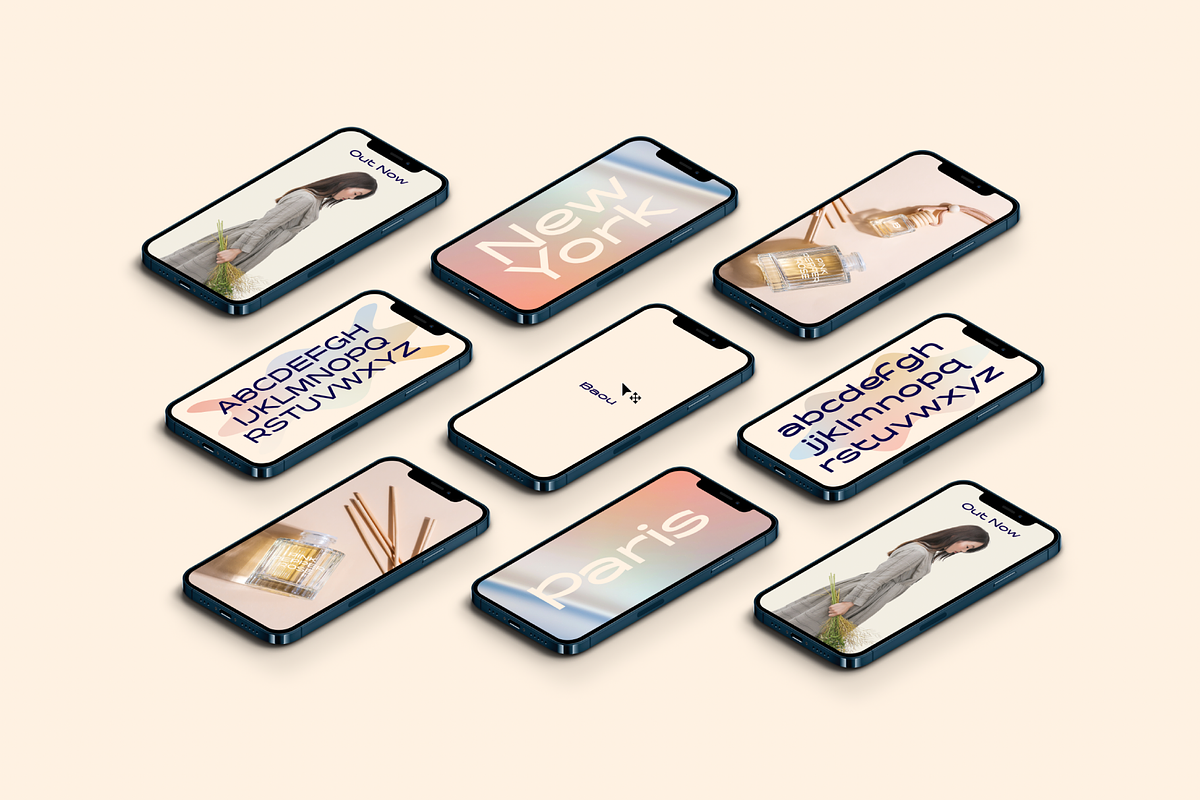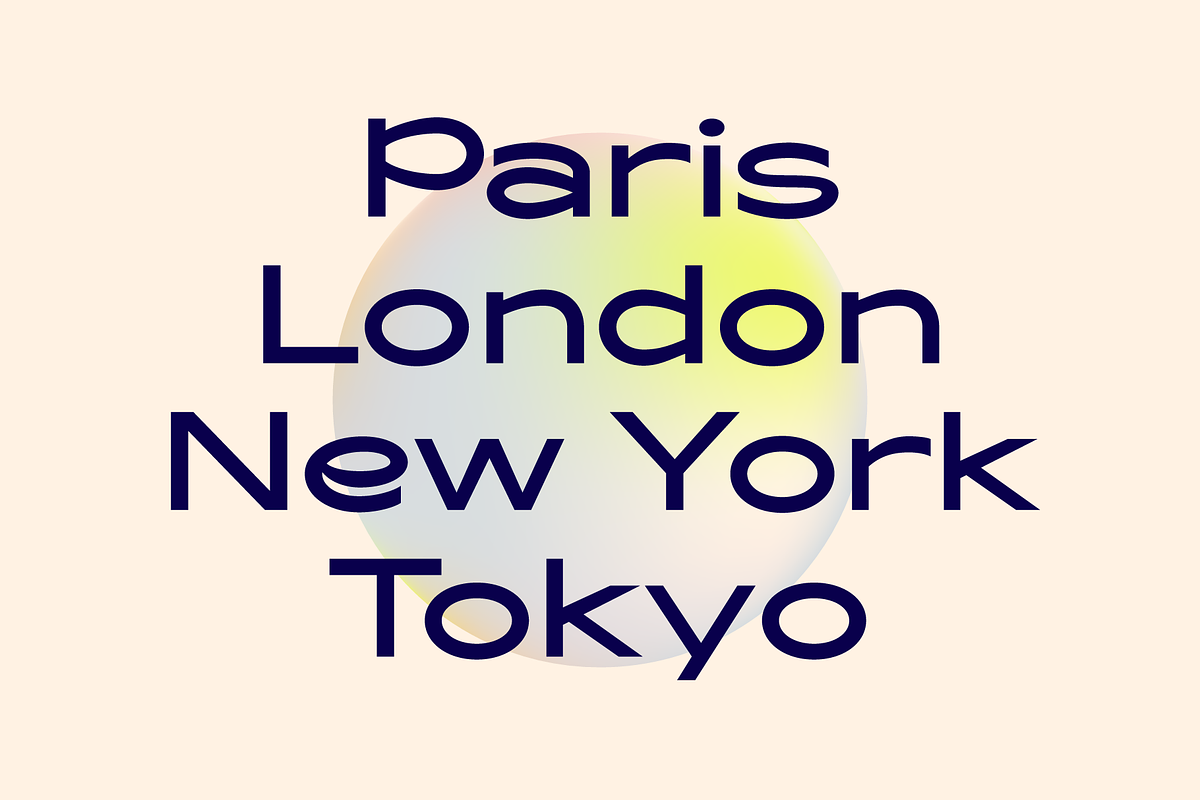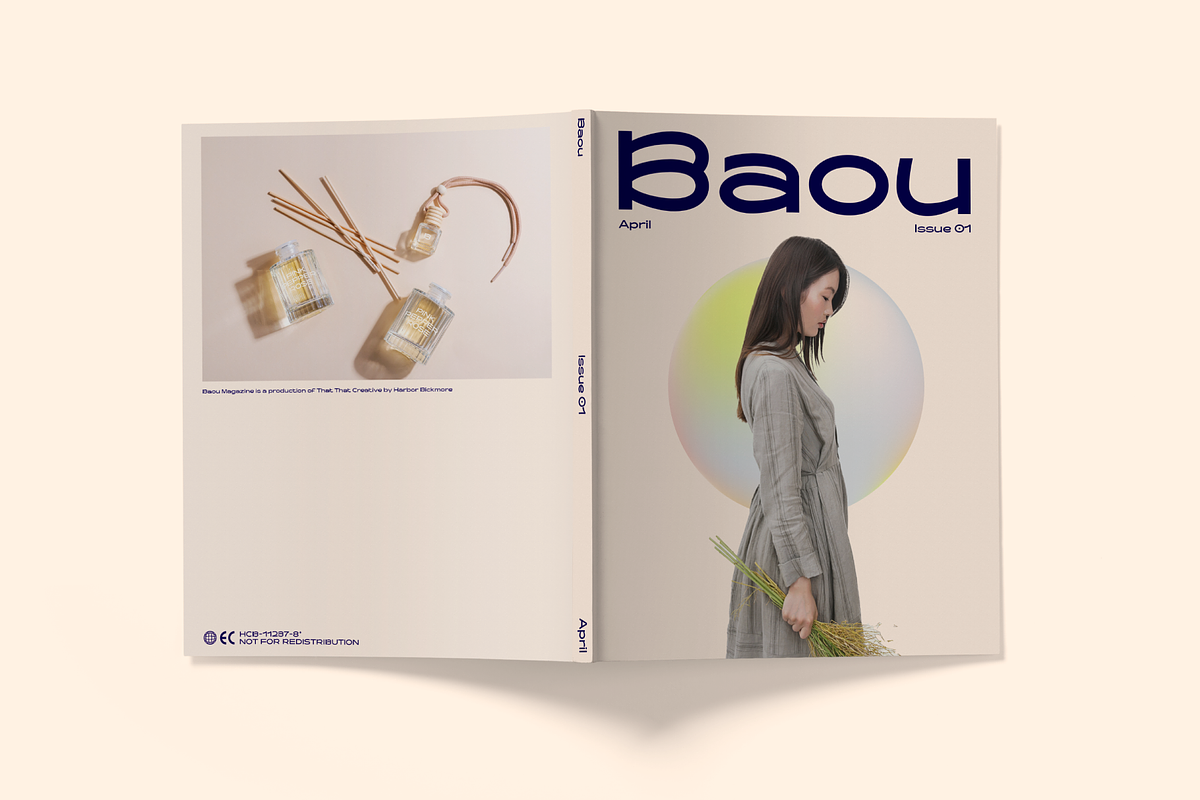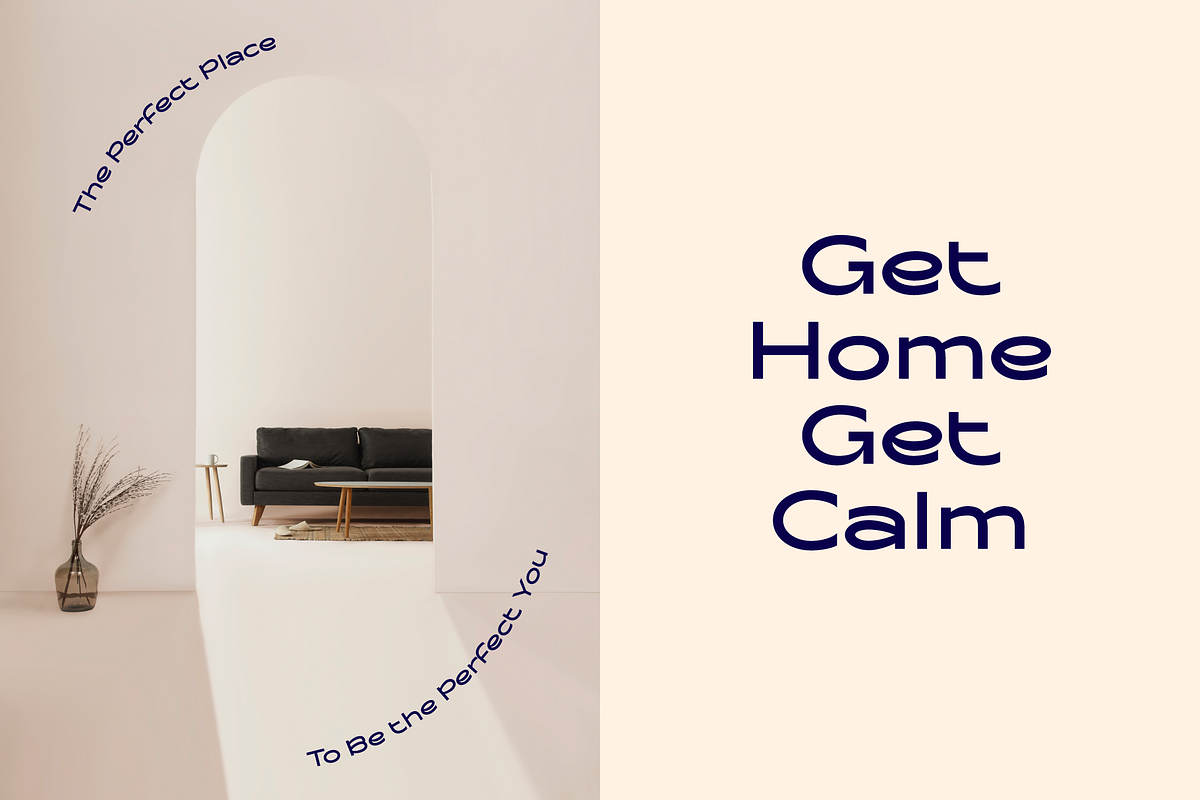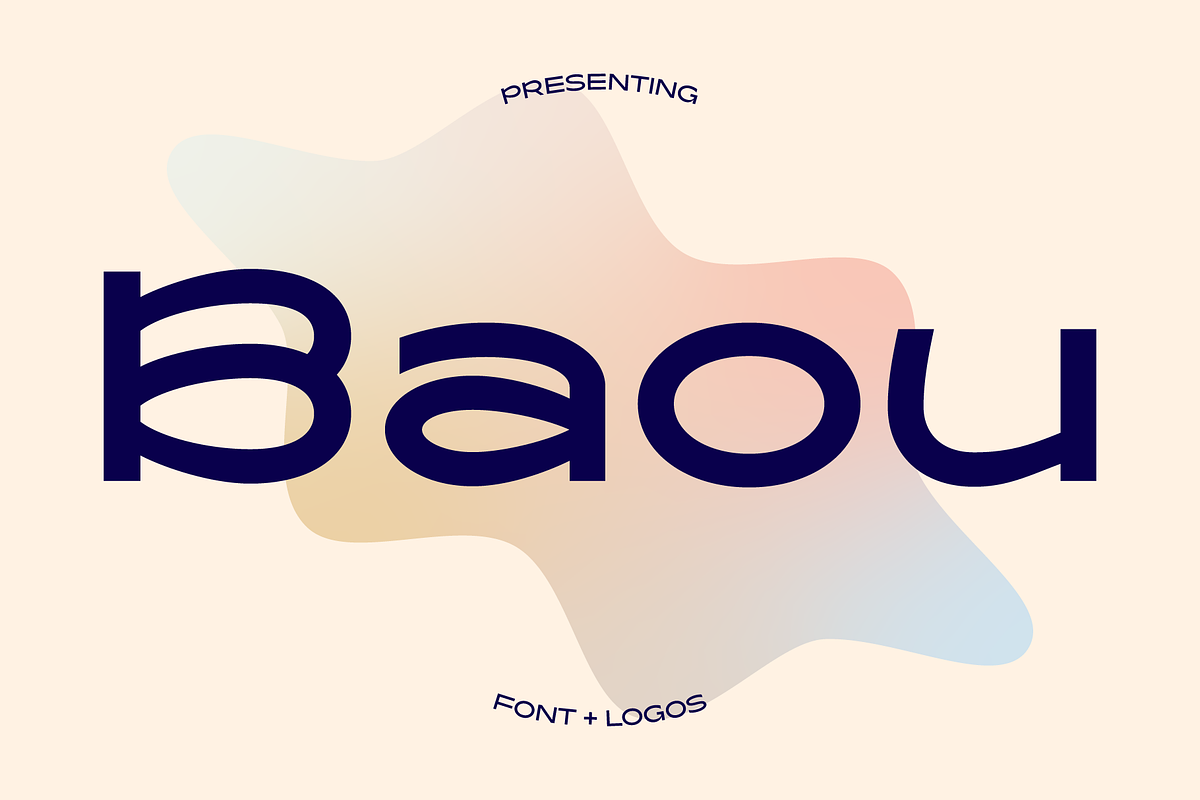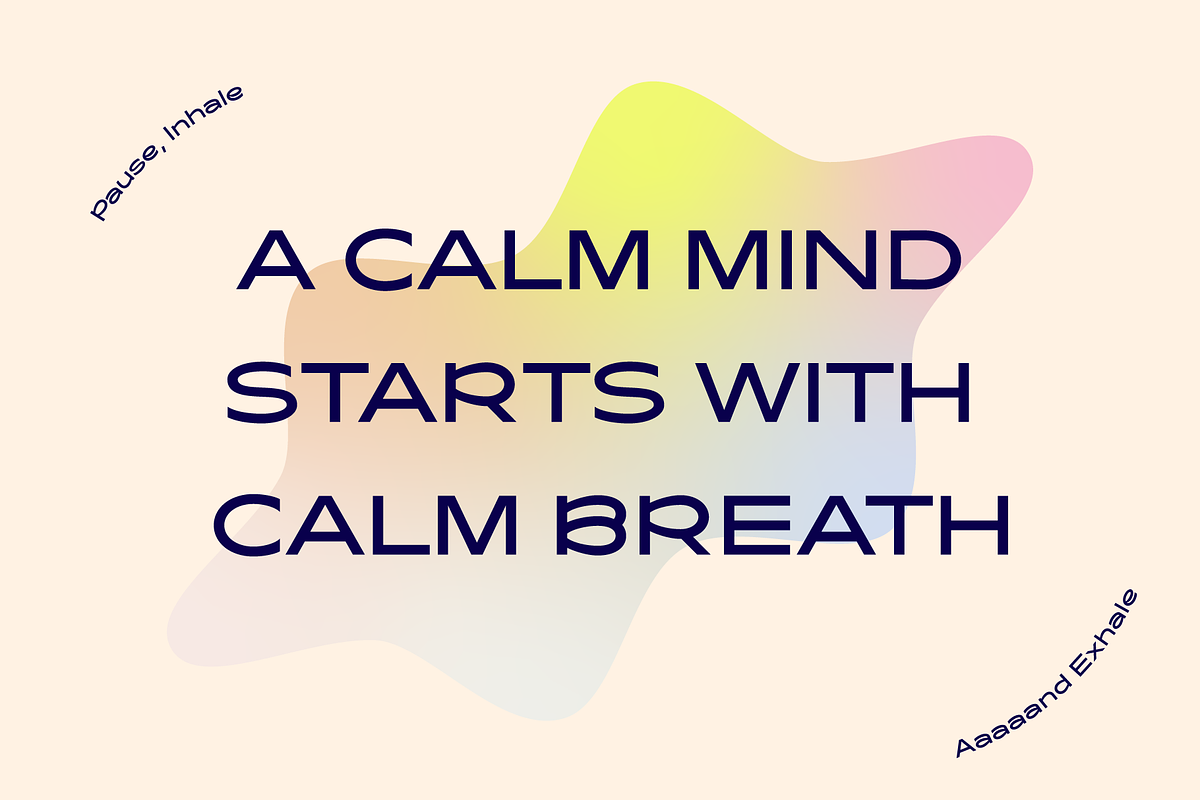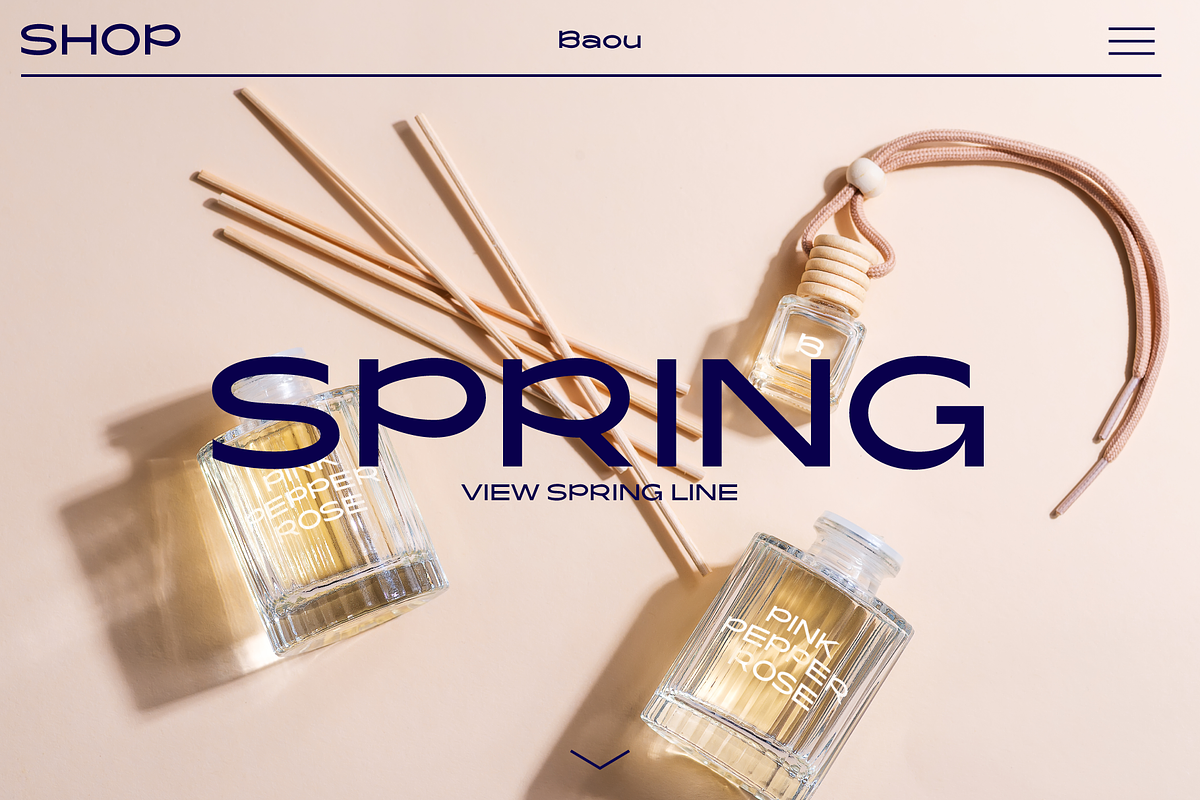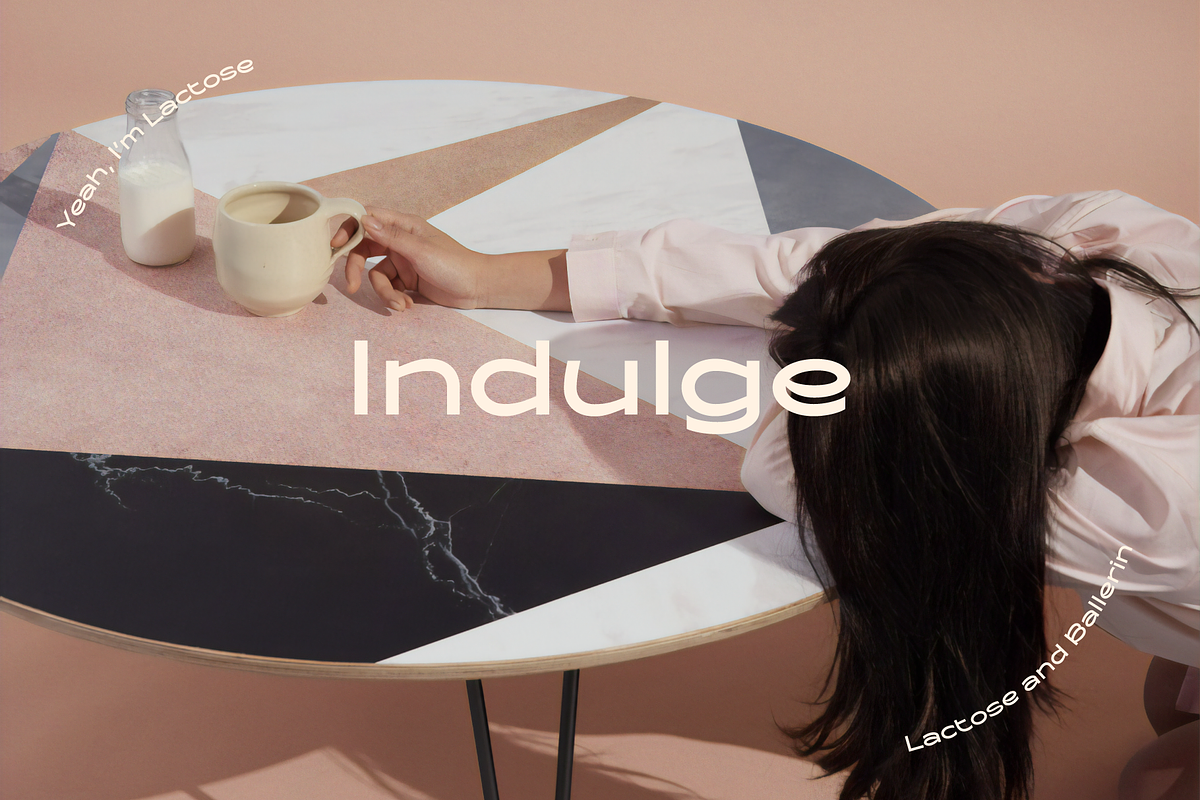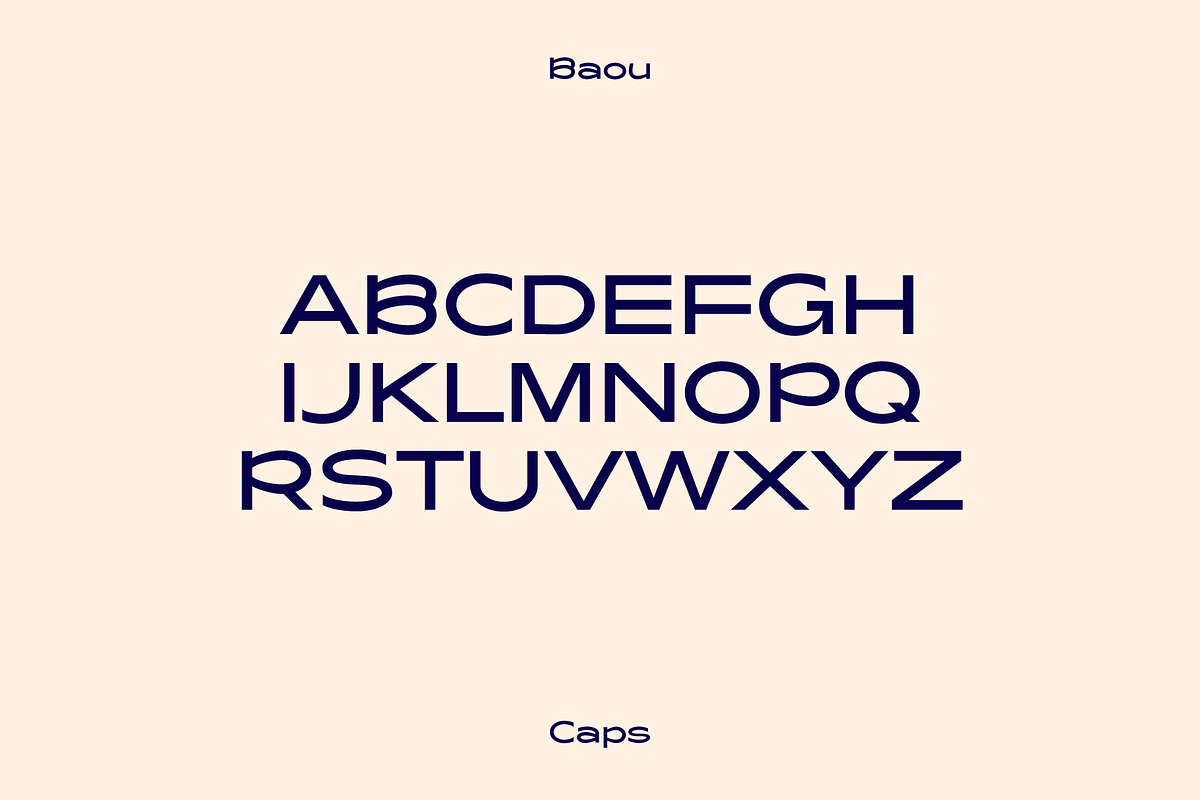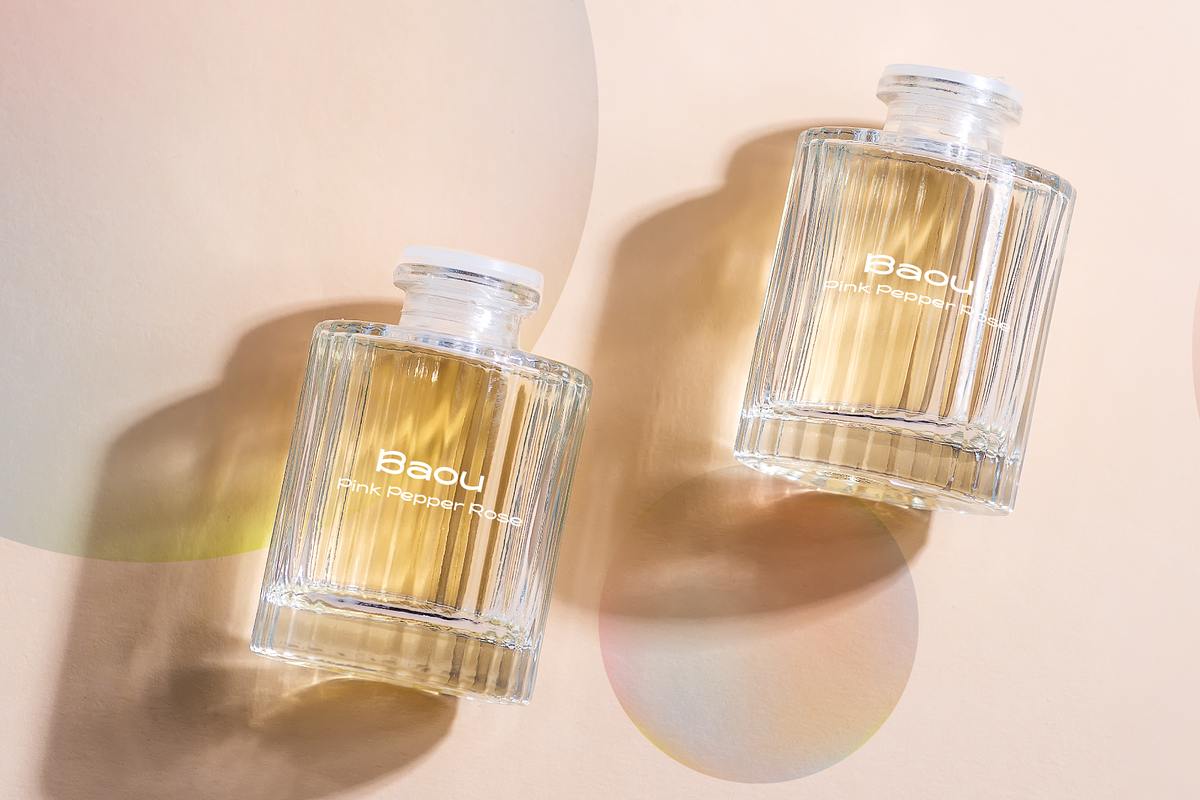
Baou Modern Sans + Logos
Baou is a bold modern sans serif font with a super wide width. enough space to really settle in. Its Pinched Curves and vertical terminals give just enough personality to get noticed without getting old. Baou is perfect for display type or body copy. Use it on Instagram, posters, web design, magazines, logos, or products. The product comes with 5 logo templates and a color palette.
- Caps and Lowercase
- Symbols and Numbers